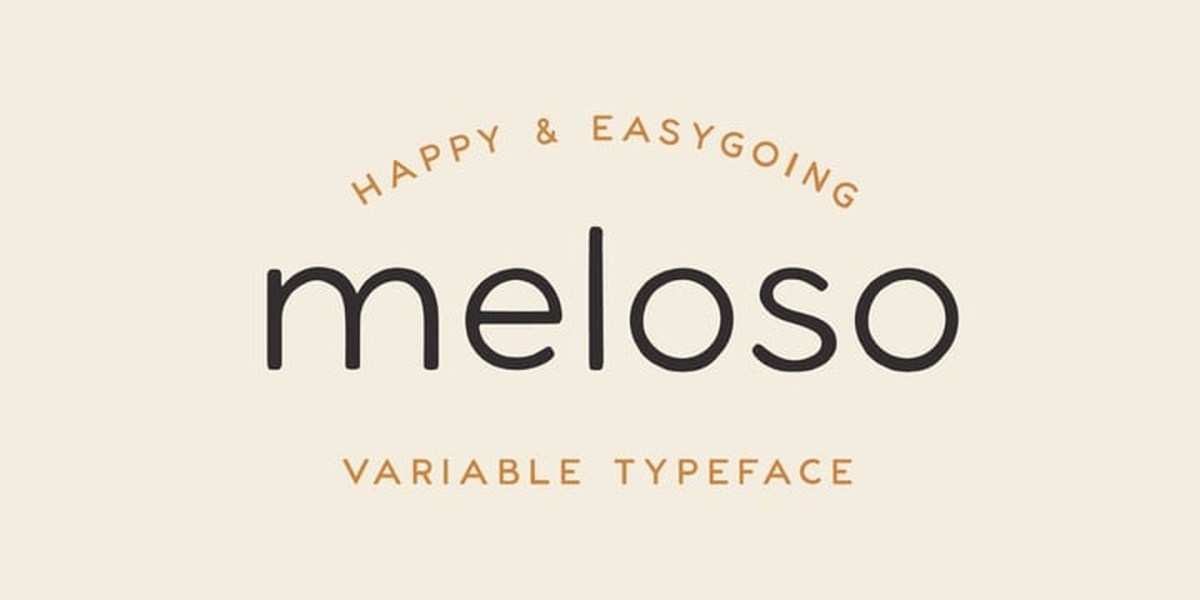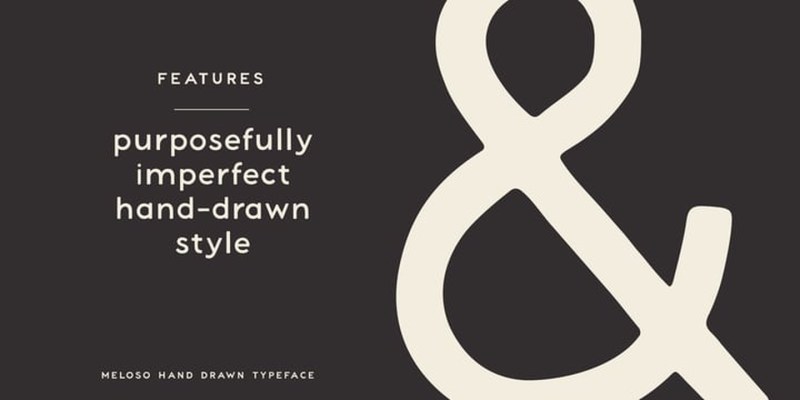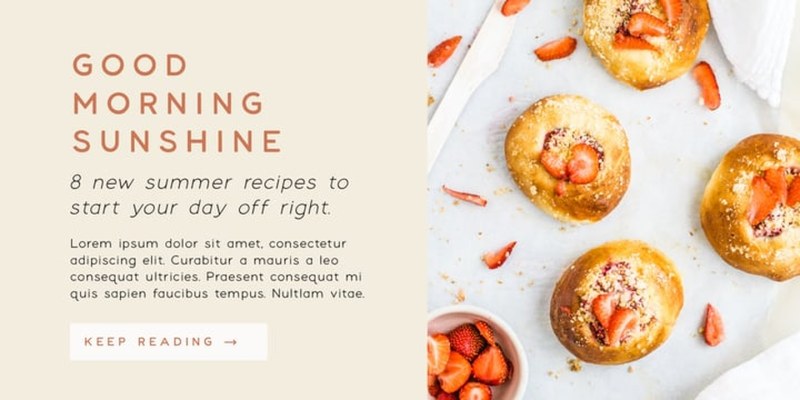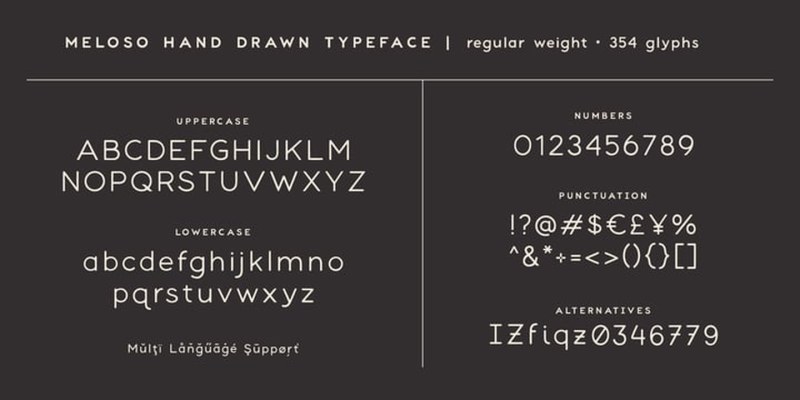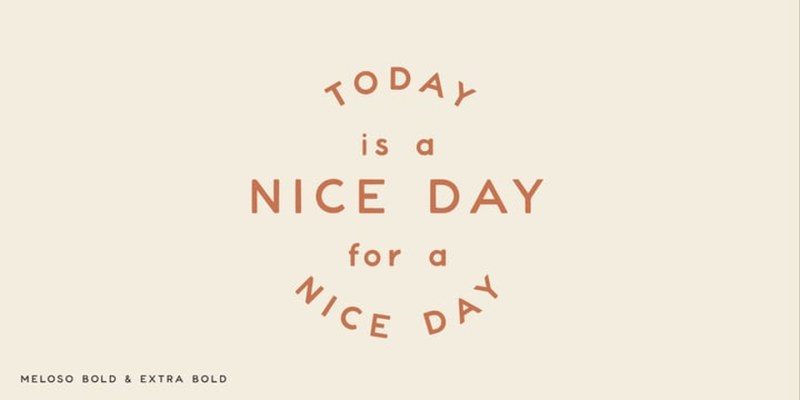
Meloso Font Family
Meloso is an easygoing typeface. It has a playful and organic feel with its hand-drawn charm while still being incredibly legible due to its simple shapes and high x-height. It has the unique ability to stand alone as a title text or work in small paragraph form. It’s the perfect way to bring the friendly feel of an “imperfect” and slightly rounded font into your next project. Meloso is a variable font with 6 set weights. If you’re using a program that supports variable fonts, you can choose any point between the “Extra Thin” and “Extra Bold” weights to get the perfect thickness and adjust the italic to the angle you need. You can also use the standard OTF files to have the 6 set weights.
Meloso Font Family is a Typeface font that brings a professional and versatile look to your projects. Meloso is an easygoing typeface.